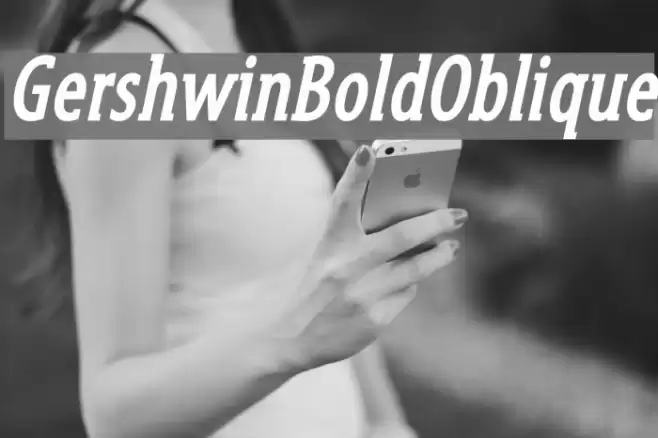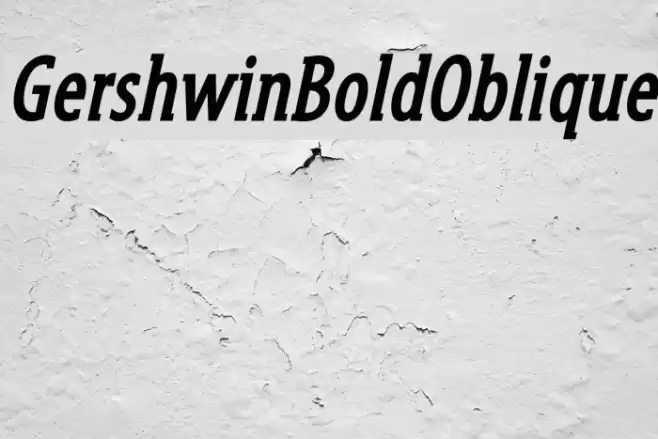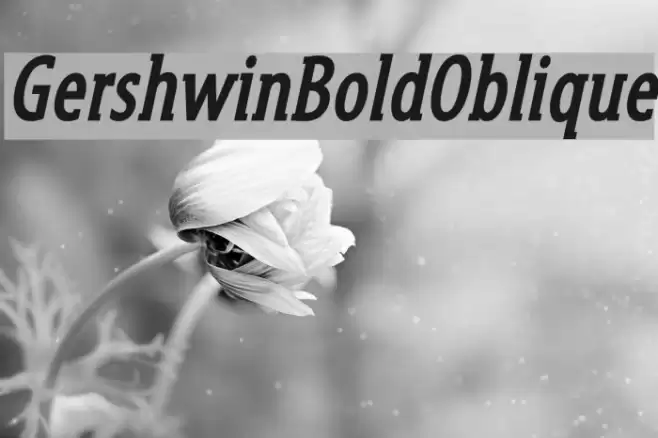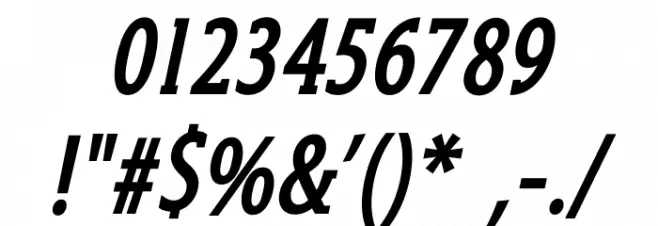
GershwinBoldOblique Font
GershwinBoldOblique Description
This font exhibits a bold and dynamic style with a pronounced oblique slant, giving it a sense of movement and energy. The characters are well-defined with a strong presence, making it ideal for attention-grabbing headlines. The uppercase letters are robust and commanding, while the lowercase letters maintain a consistent flow, enhancing readability. The numerals are clear and distinct, ensuring they stand out in any context. Special characters are designed with the same boldness, ensuring uniformity across all glyphs. The overall impression is one of strength and modernity, suitable for impactful design projects.
A bold, oblique font with a dynamic and modern style from Uncategorized fonts.